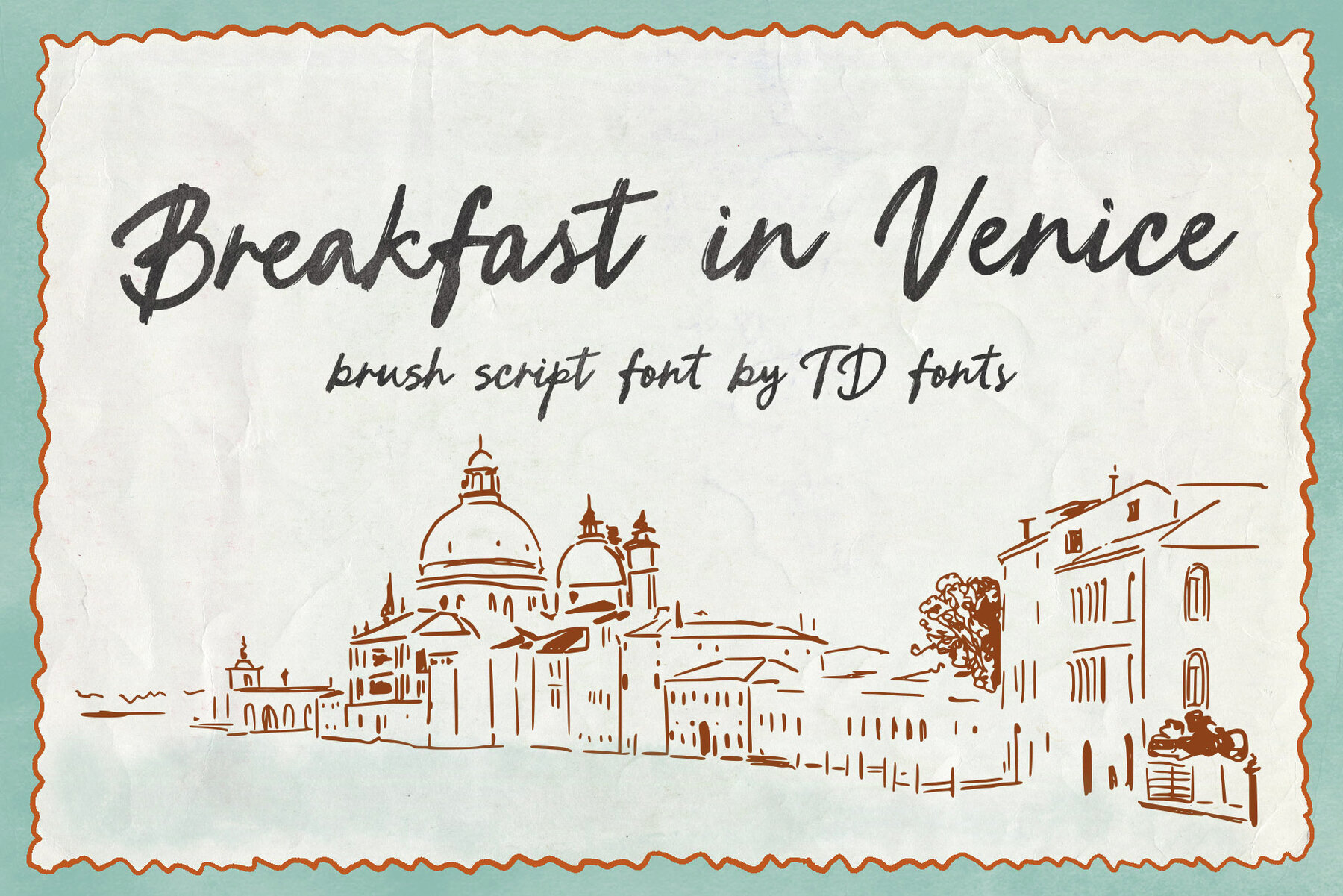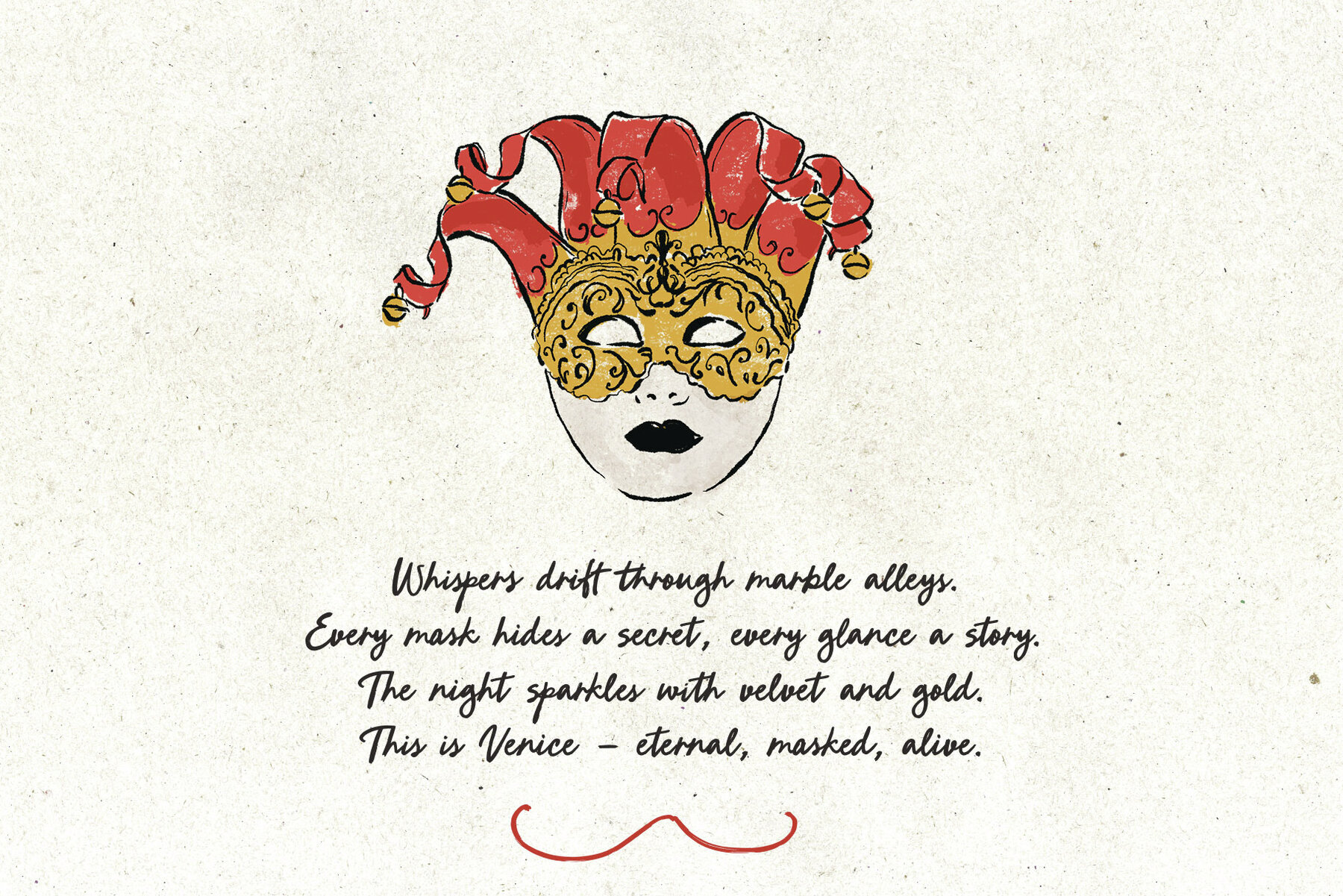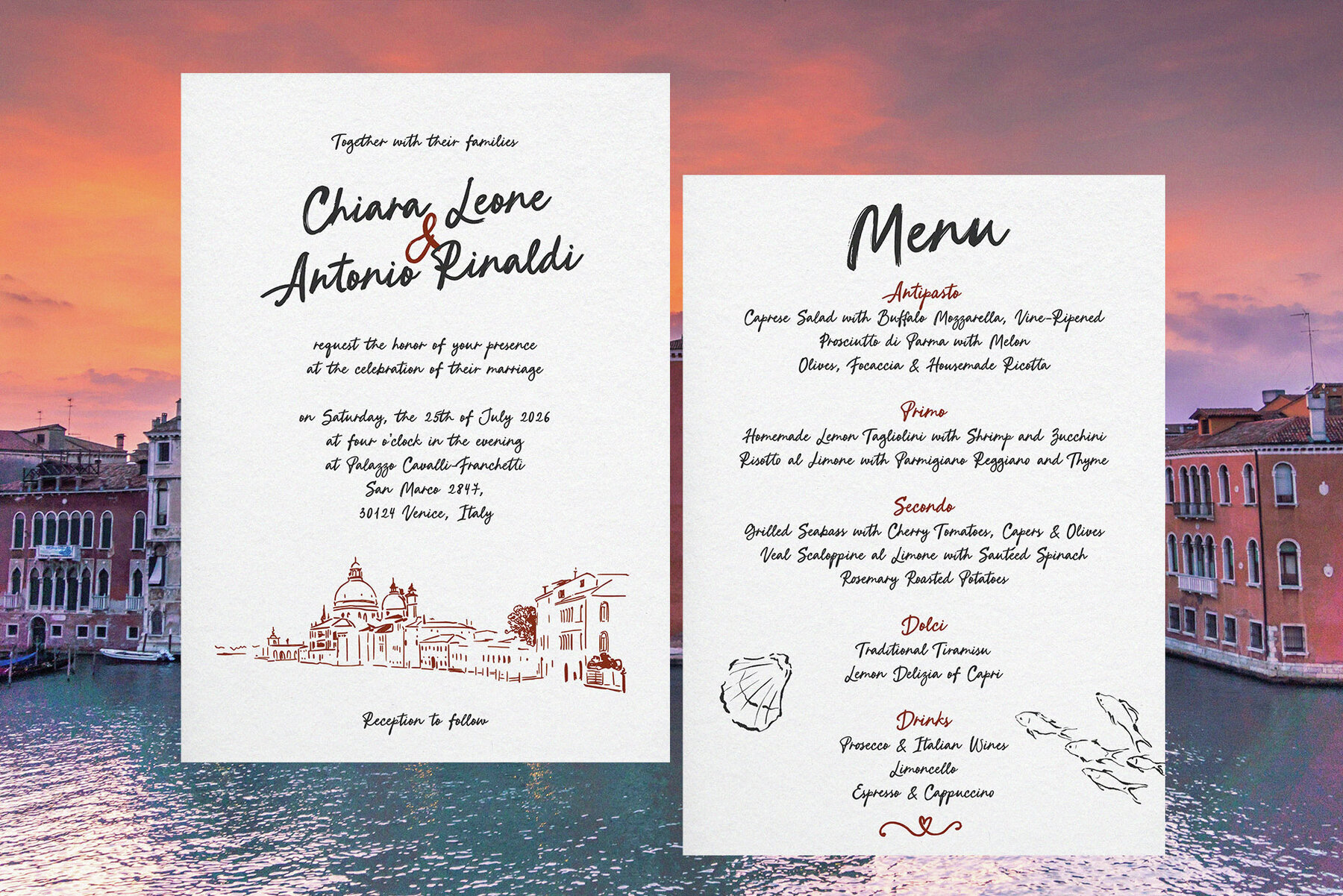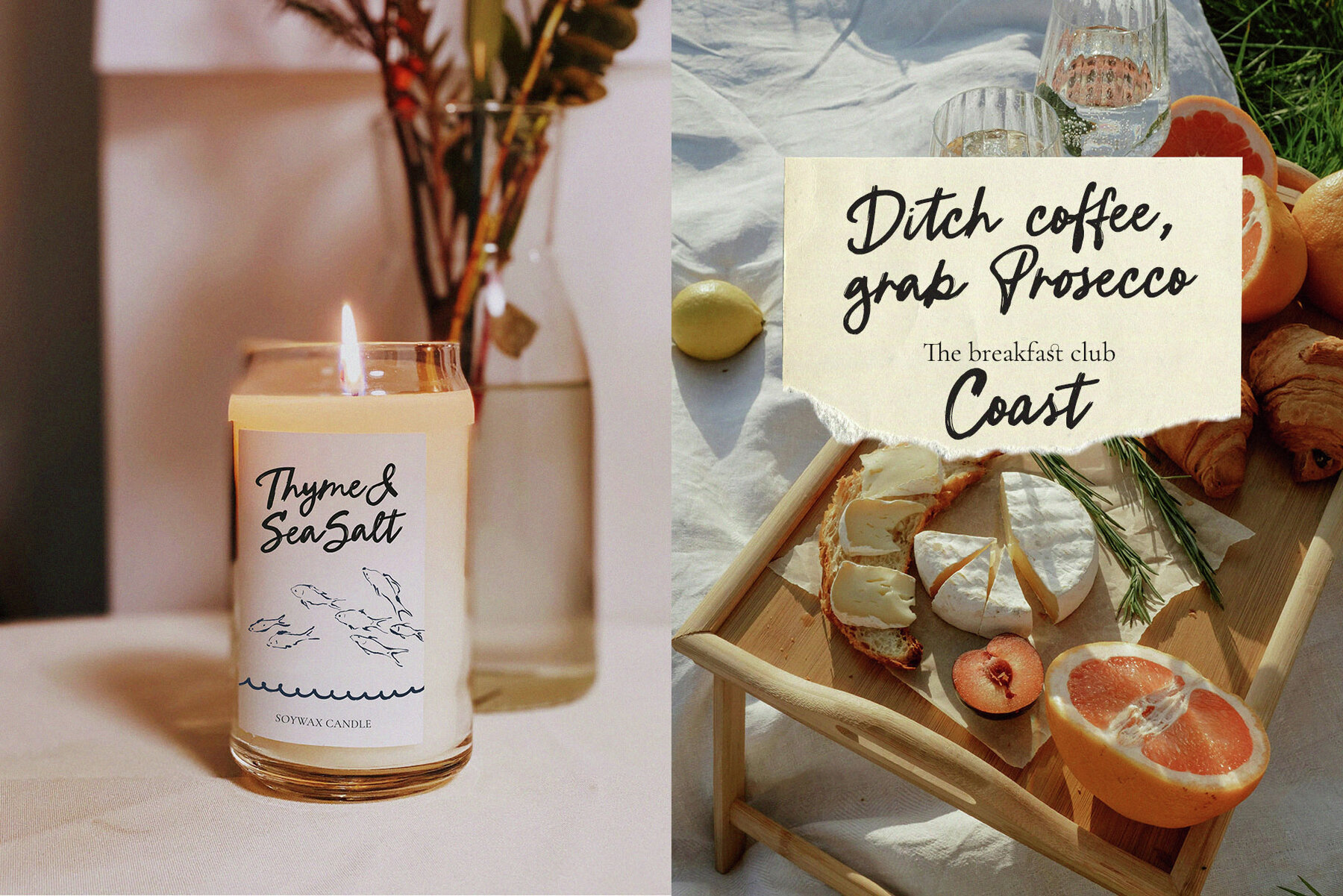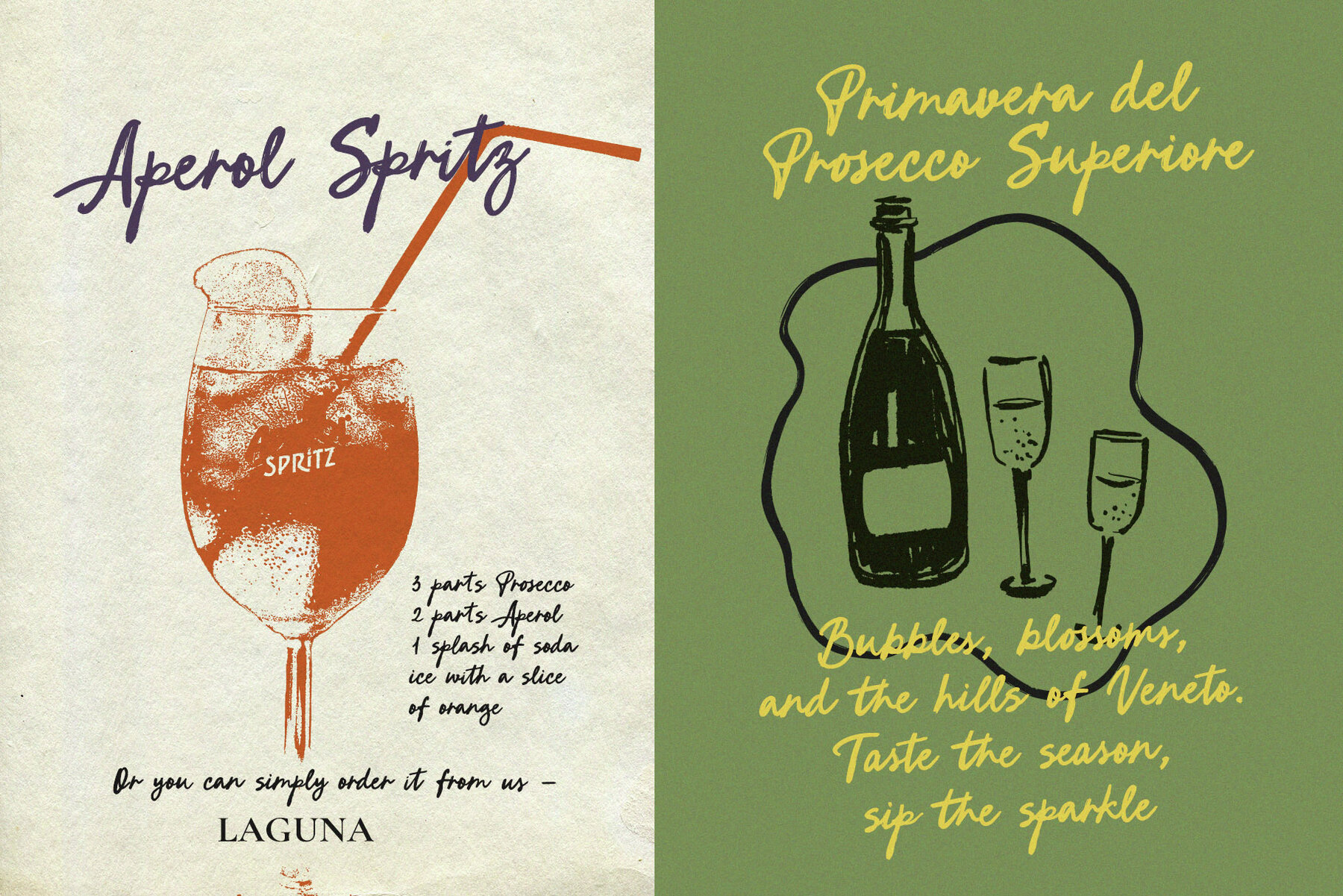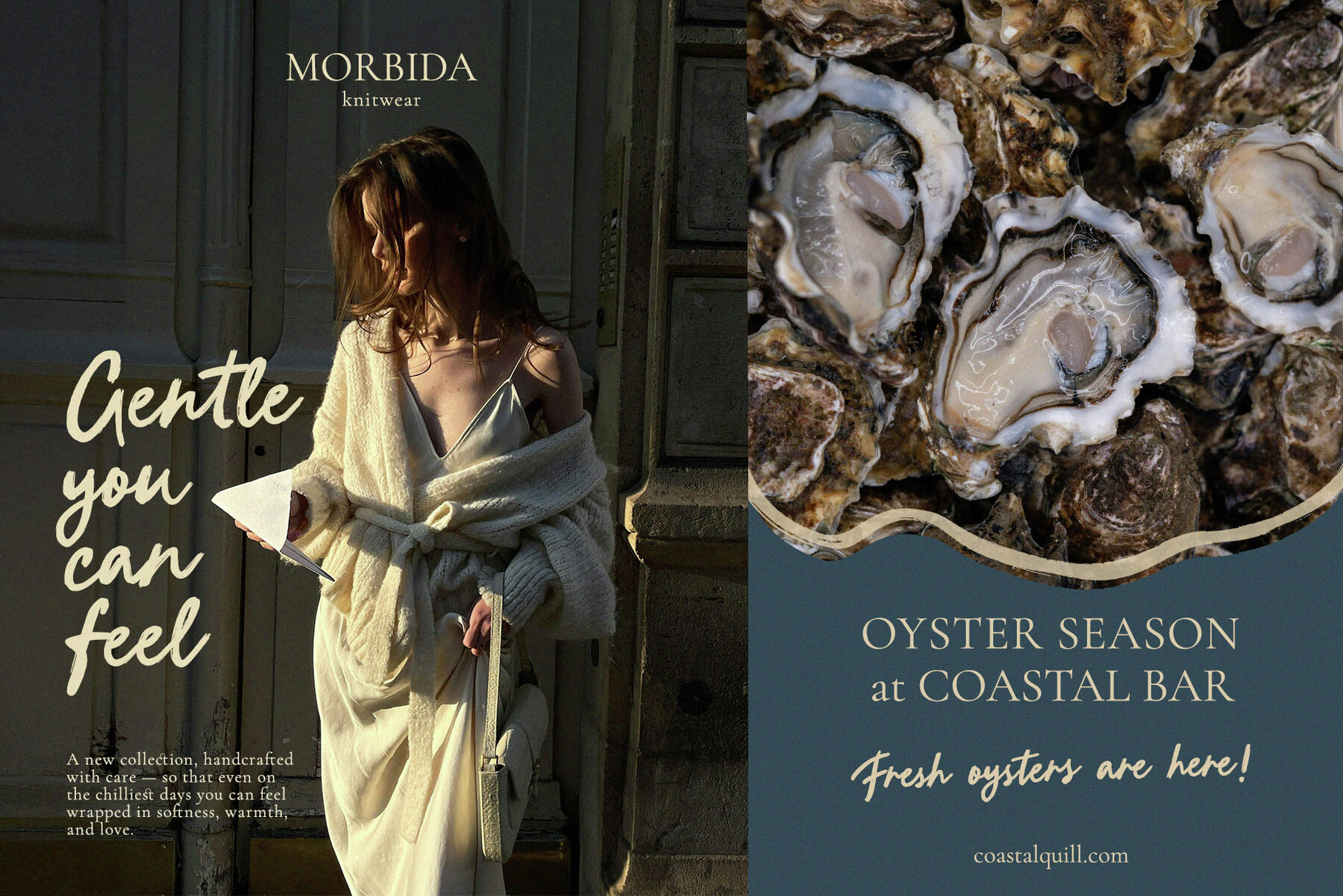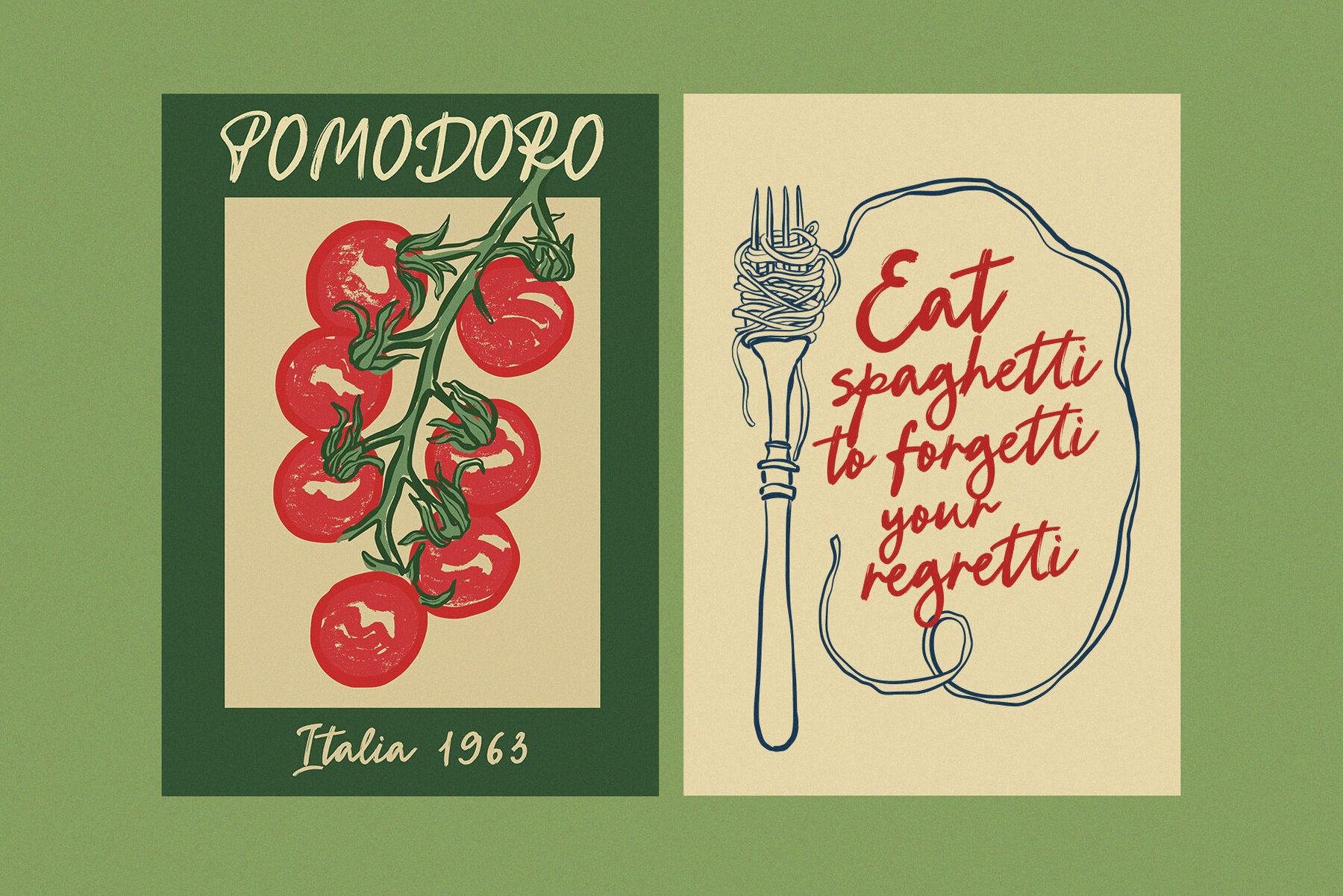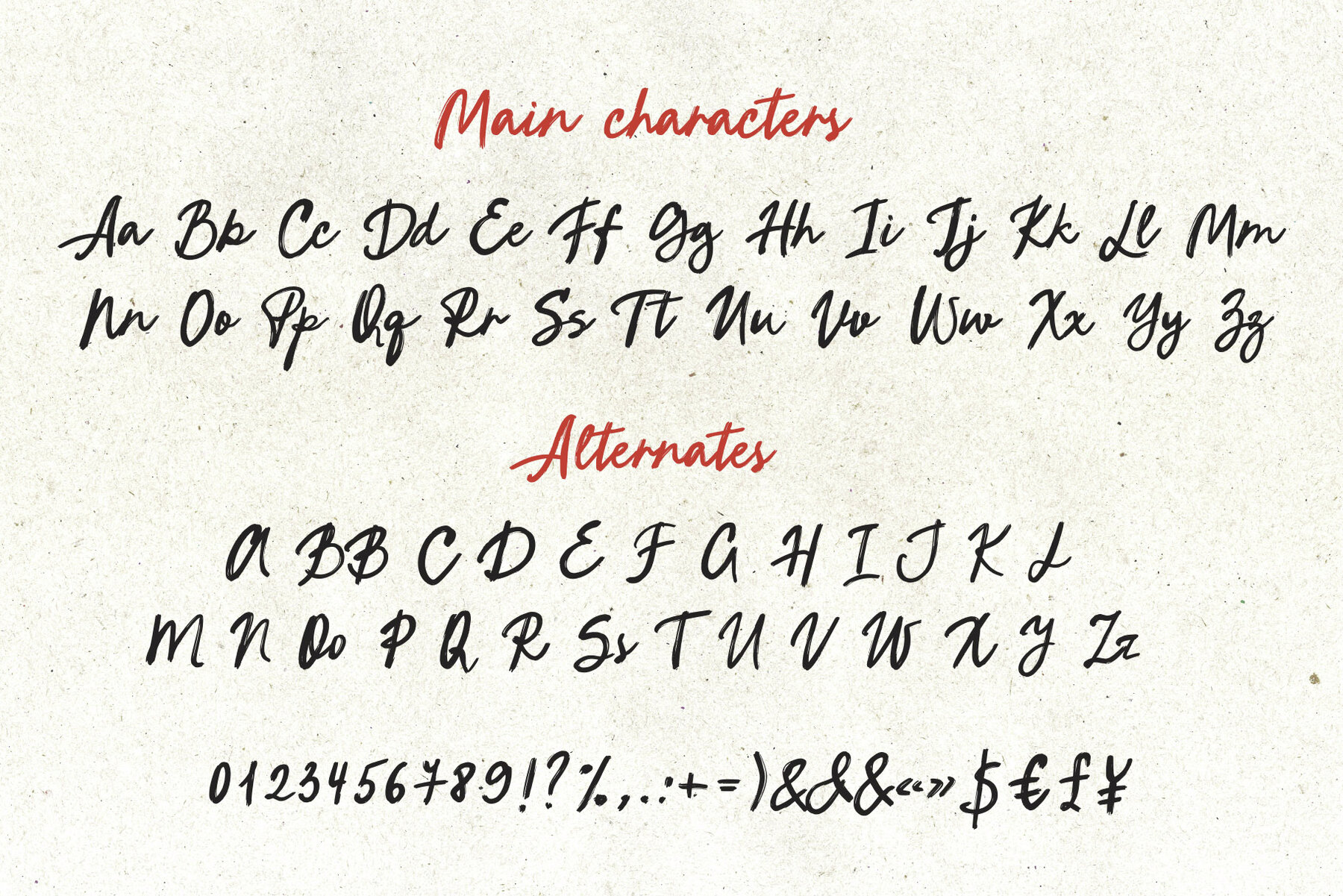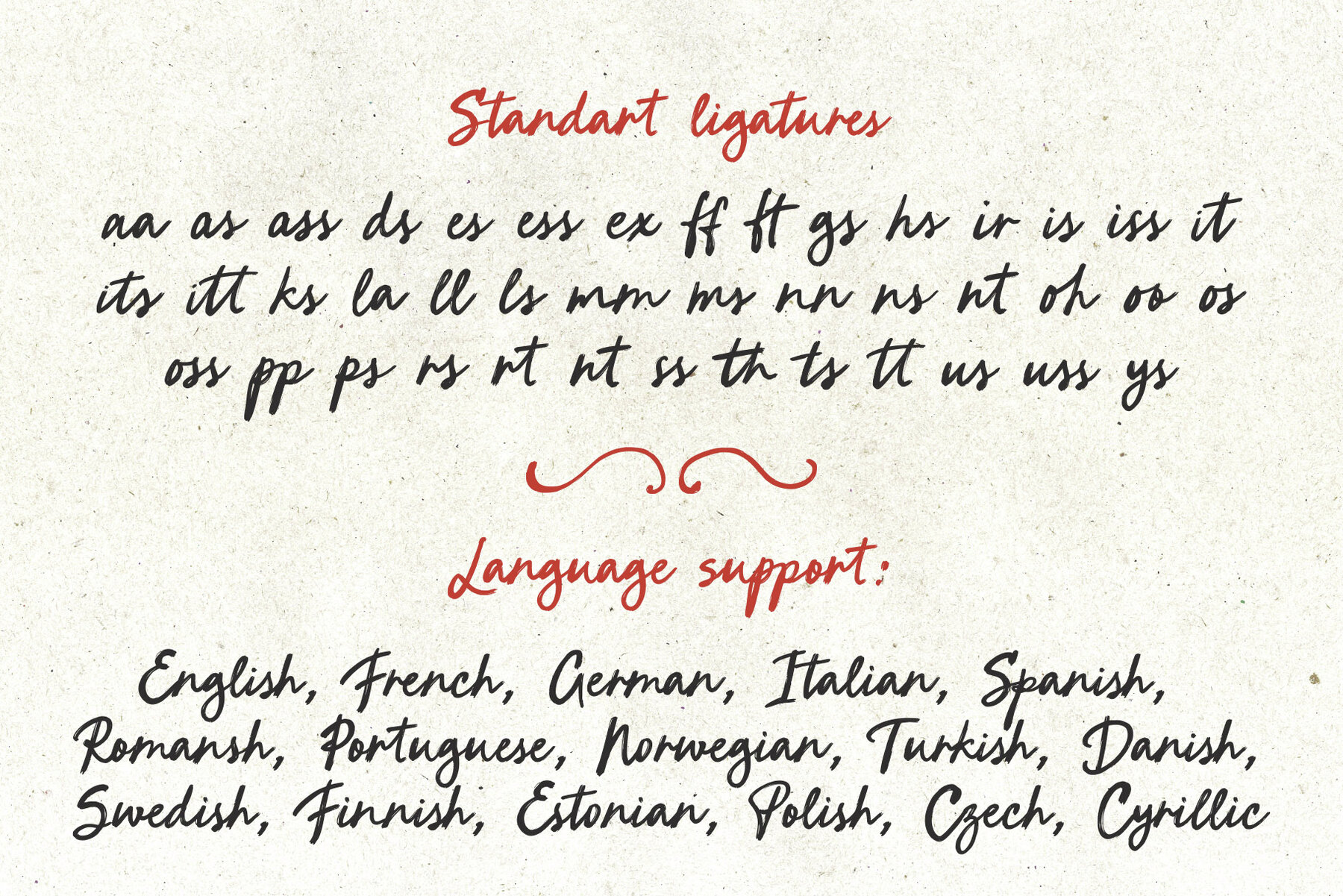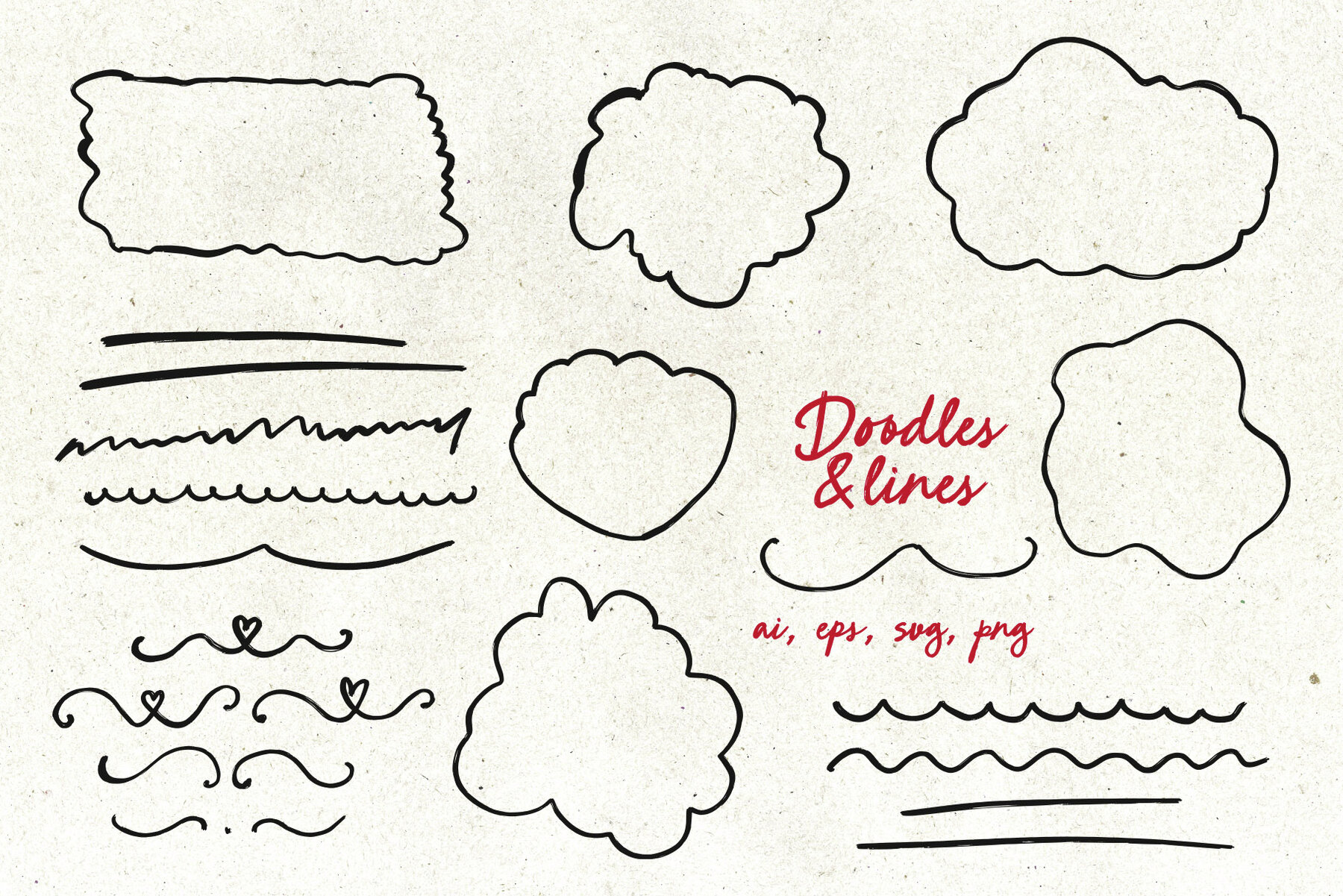
Breakfast in Venice Font
Breakfast in Venice is a bold, modern handwritten bold brush script font with multilingual support. Featuring a rich textured look and a wide set of alternates, it feels both organic and full of energy. Add a touch of imperfection and capture attention with Breakfast in Venice — a hand-drawn script with playful quirks and a vivid personality. Sketched by hand on paper, this font is a contemporary take on classic brush calligraphy. It carries a subtle retro charm while staying perfectly on-trend, bringing warmth, coziness, and a festive mood to your projects. With its extensive collection of stylistic alternates and ligatures, Breakfast in Venice allows you to craft expressive, varied lettering styles. This modern calligraphic font is perfect for branding, websites, greeting cards, birthday designs, invitations, whimsical prints, posters, wedding stationery, packaging, or any project that calls for a playful, imperfect, yet stylishly cozy vibe. WHAT YOU GET: Breakfast in Venice - OTF Breakfast in Venice has extensive language support, it includes English, French, German, Italian, Spanish, Portuguese, Danish, Norwegian, Swedish, Finnish, Estonian, Romansh, Turkish, Polish, Cyrillic Please note that text and mockups are not included.